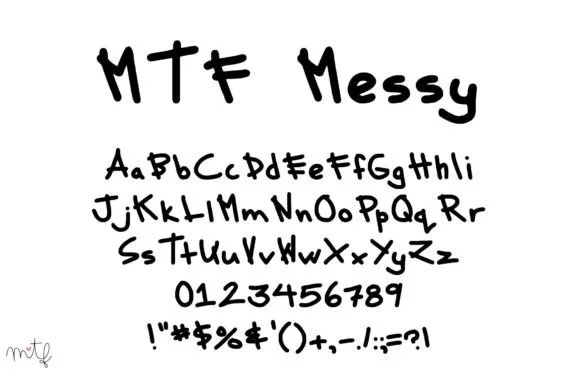
Messy Font
About Messy Font
When time is of the essence and you need to convey urgency or a sense of haste, Messy is the font that perfectly captures that spontaneous and hurried vibe. Designed with a natural, hastily appearance, Messy adds a unique touch to your text, infusing it with meaning and a sense of urgency.
The charm of Messy lies in its authenticity. The characters carry a natural imperfection, as if they were penned down in a rush, leaving behind an unpolished and spontaneous trail. This messy handwriting adds character to your text, breaking away from the rigidity of traditional fonts and infusing a sense of realness.
The hastily appearance of Messy is intentional and purposeful. It speaks to the urgency of the moment, making it ideal for designs that require a touch of spontaneity. Whether you’re creating social media graphics, event posters, or any project where time is of the essence, Messy steps in to deliver that sense of urgency with style.
Messy is more than just a font; it’s a visual representation of a moment in time. Its messy handwriting style captures the essence of quick thoughts jotted down on paper or hastily scribbled notes. This authenticity makes Messy a valuable asset when you want your text to evoke a sense of immediacy and raw emotion.
In a rush, Messy becomes your go-to companion. Its unique appearance sets it apart from conventional fonts, allowing you to convey a specific mood or atmosphere in an instant. Messy is the tool you reach for when you want your text to communicate not just the words, but the urgency and spontaneity behind them.
So, whether you’re crafting a last-minute announcement, a quick note, or any design that requires a sense of hastiness, Messy is there to express that perfectly. It’s the font that embraces imperfection, turning it into a design asset that adds meaning and character to your text. Let Messy be your choice when you need to convey the rush of the moment with a touch of handwritten authenticity.